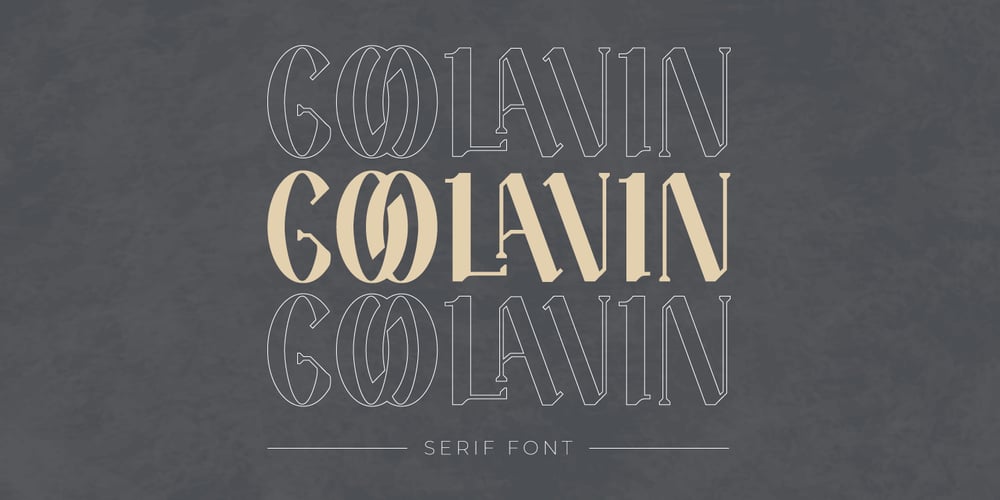
Goolavin
Goolavin Font Family was designed by Fadli Ramadhan Iskandar and published by Attype Studio. Goolavin contains 1 styles and family package options. Goolavin is a Modern Minimal Serif typefaceThis font exudes a sense of power. It is elegant but strong and confident in appearance. Each letter has been carefully designed to create the best possible impression. It looks stunning on packaging, clothing, and any industry where elegance is needed without sacrificing boldness. that suitable for strong and modern looks on your works.Goolavin is perfect for sport product, branding, logo, invitation, stationery, product packaging, merchandise, monogram, blog design, game titles, cute style design, Book/Cover Title and more.Features :- Goolavin Font- Ligatures- Multilingual, US Roman, Latin 1 Support